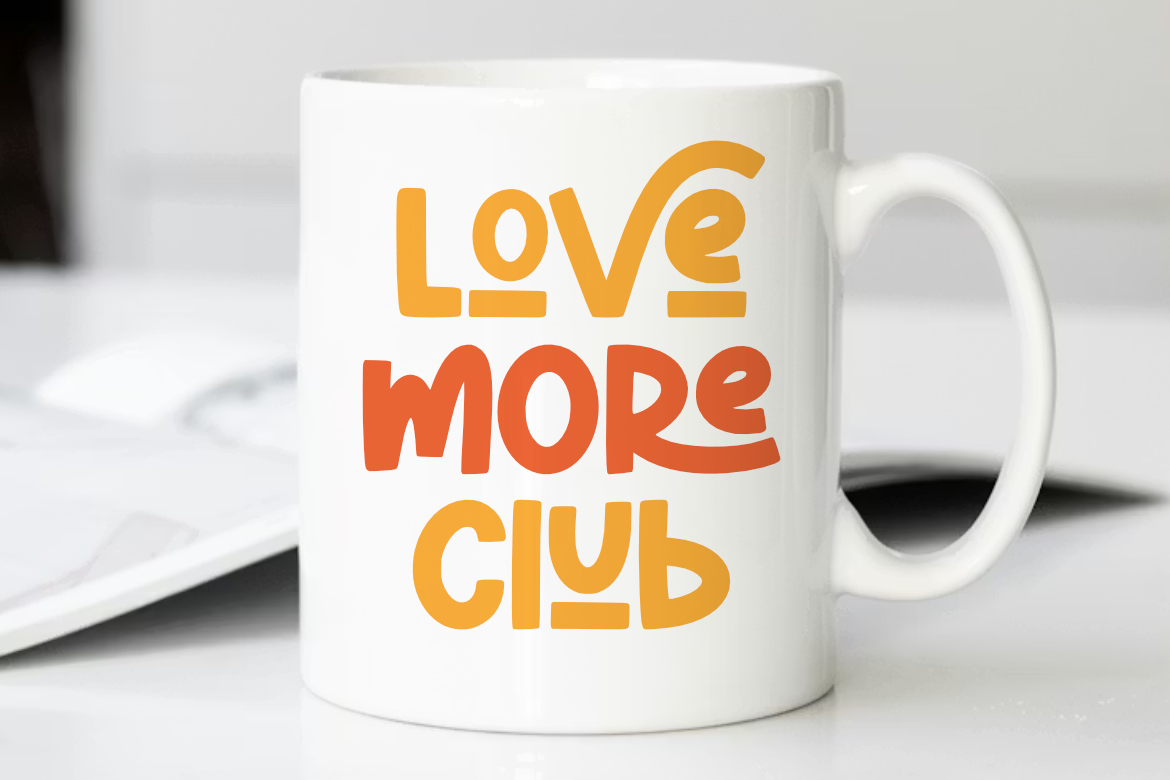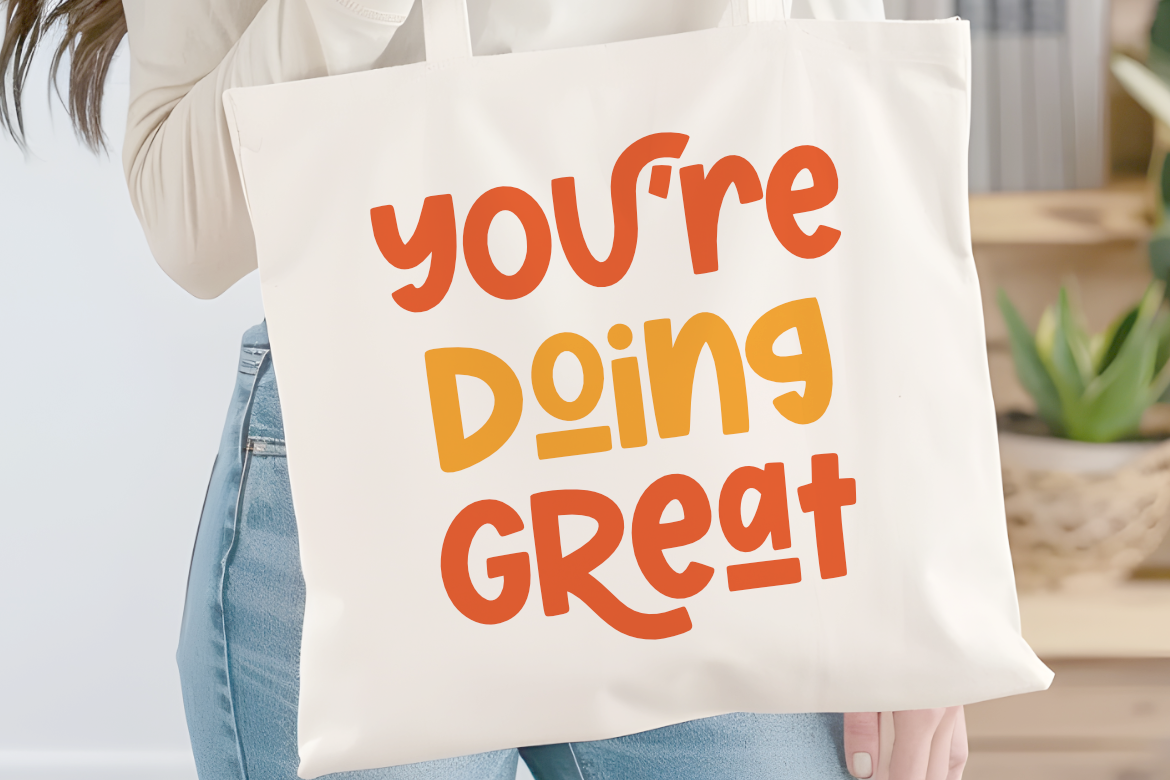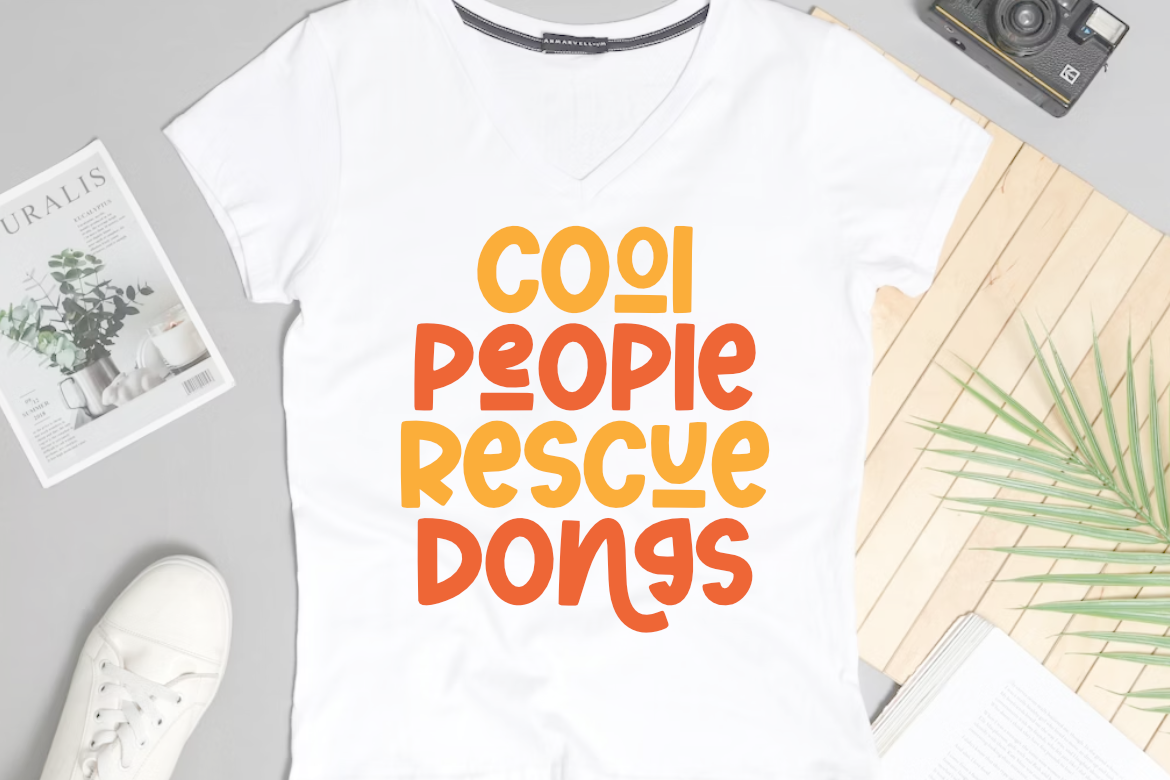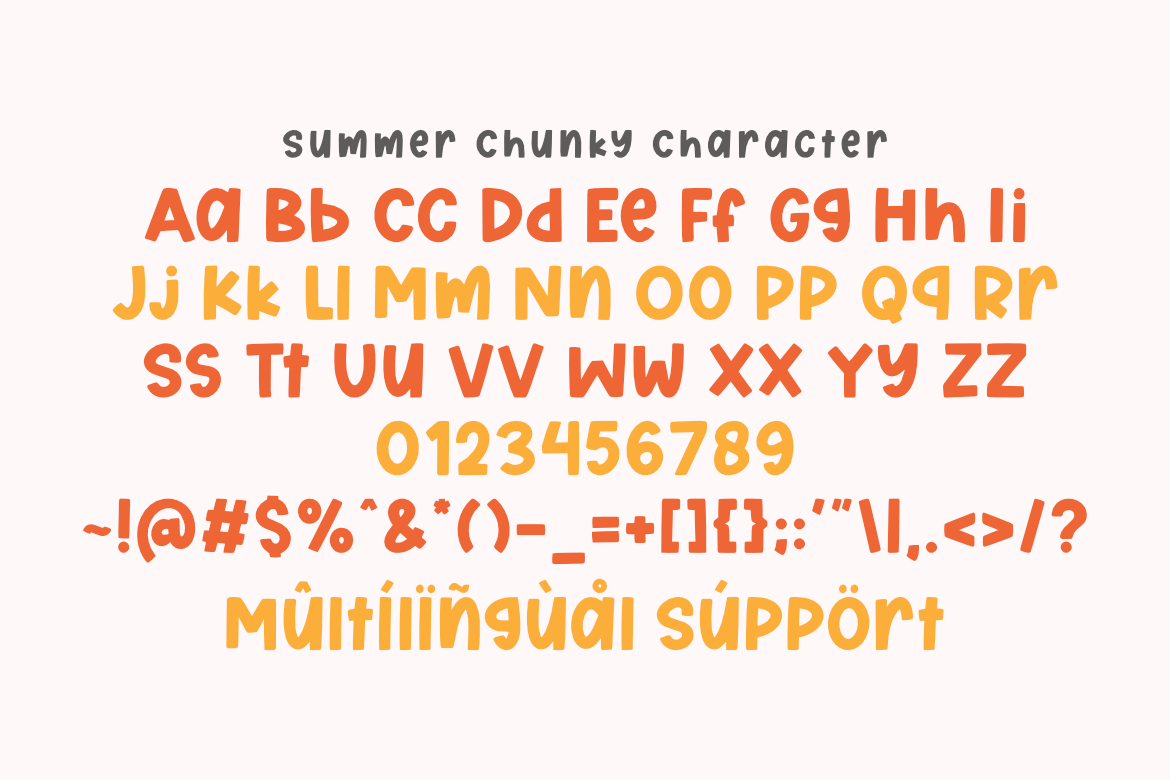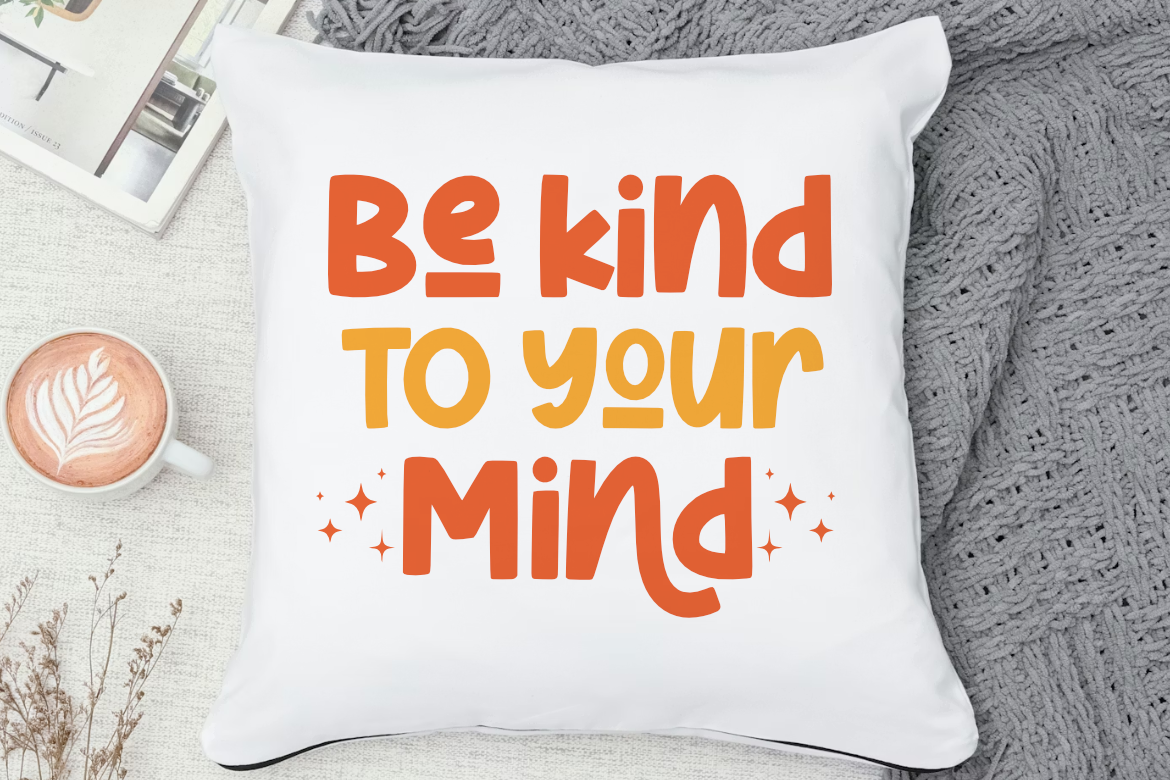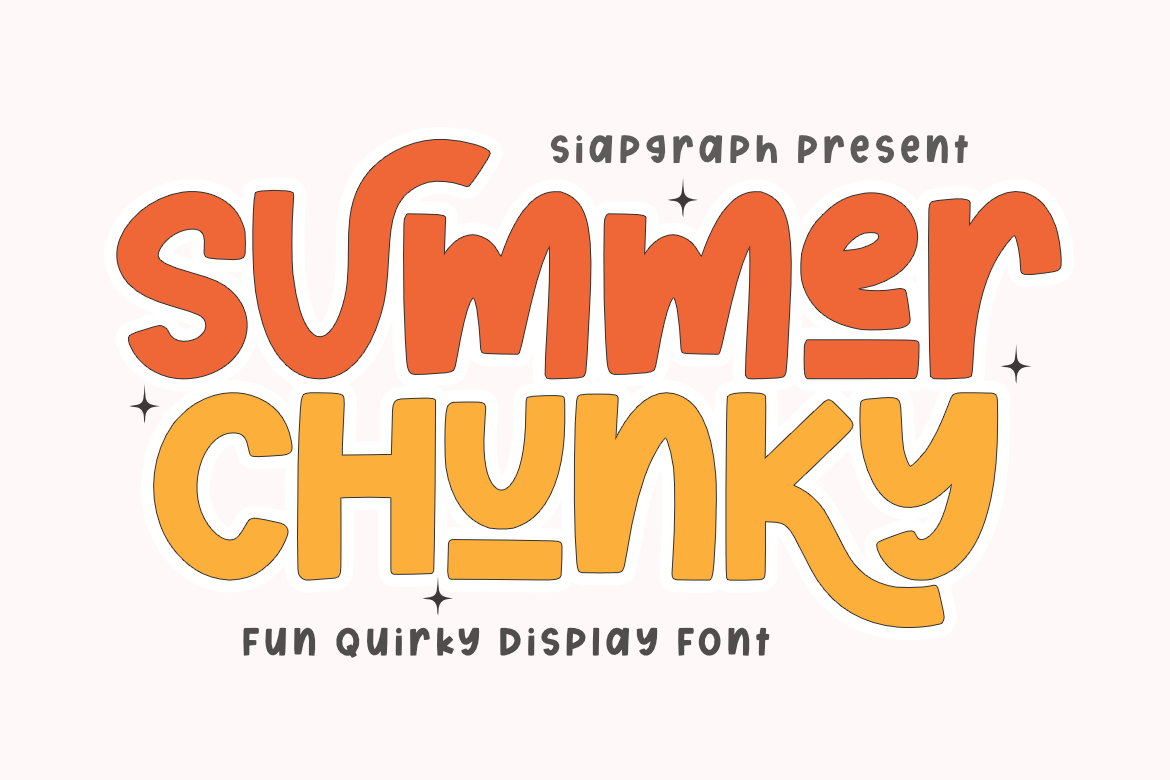
Summer Chunky - Fun Quirky Display Font for Cricut and Sublimation
Summer Chunky is a fun quirky display font that captures the vibrant and carefree essence of sunny days and retro aesthetics. This typeface features bold, chunky strokes with unique underlined accents, giving your designs a spontaneous, hand-drawn character that stands out. Its thick and smooth outlines are specifically crafted for the DIY community, ensuring a perfect and easy cutting experience on all digital craft machines.
Perfect for: creating eye-catching SVG cut files, summer-themed t-shirts, beach-day stickers, personalized pool party invites, school posters, and playful branding for children's products. Whether you are designing for a professional Print on Demand (POD) store or a personal craft project, this font delivers high readability with a joyful, groovy vibe.
Great for holiday themes like Summer Break, Family Vacations, Back to School, and End-of-Year parties, adding a bright, optimistic, and energetic touch to all your creative seasonal projects!
β Stylish & unique letterforms